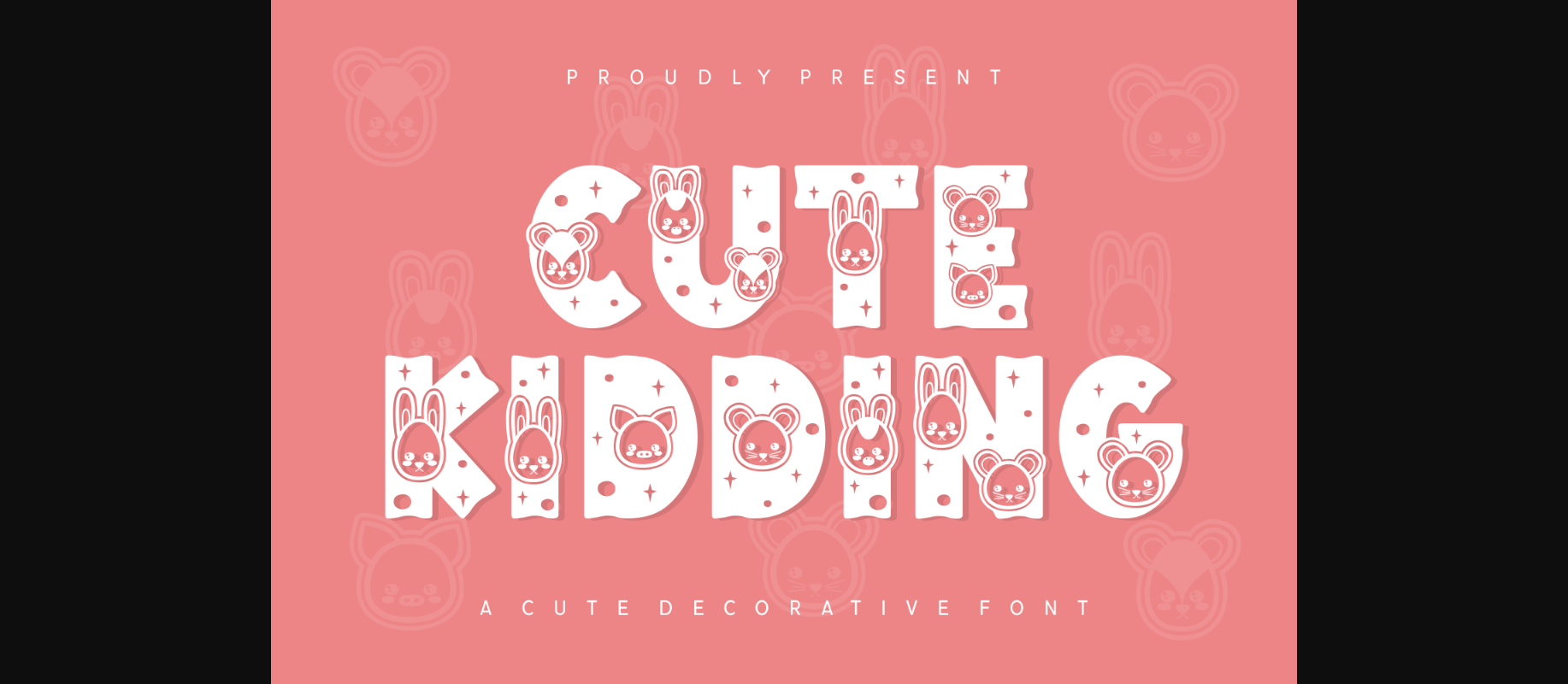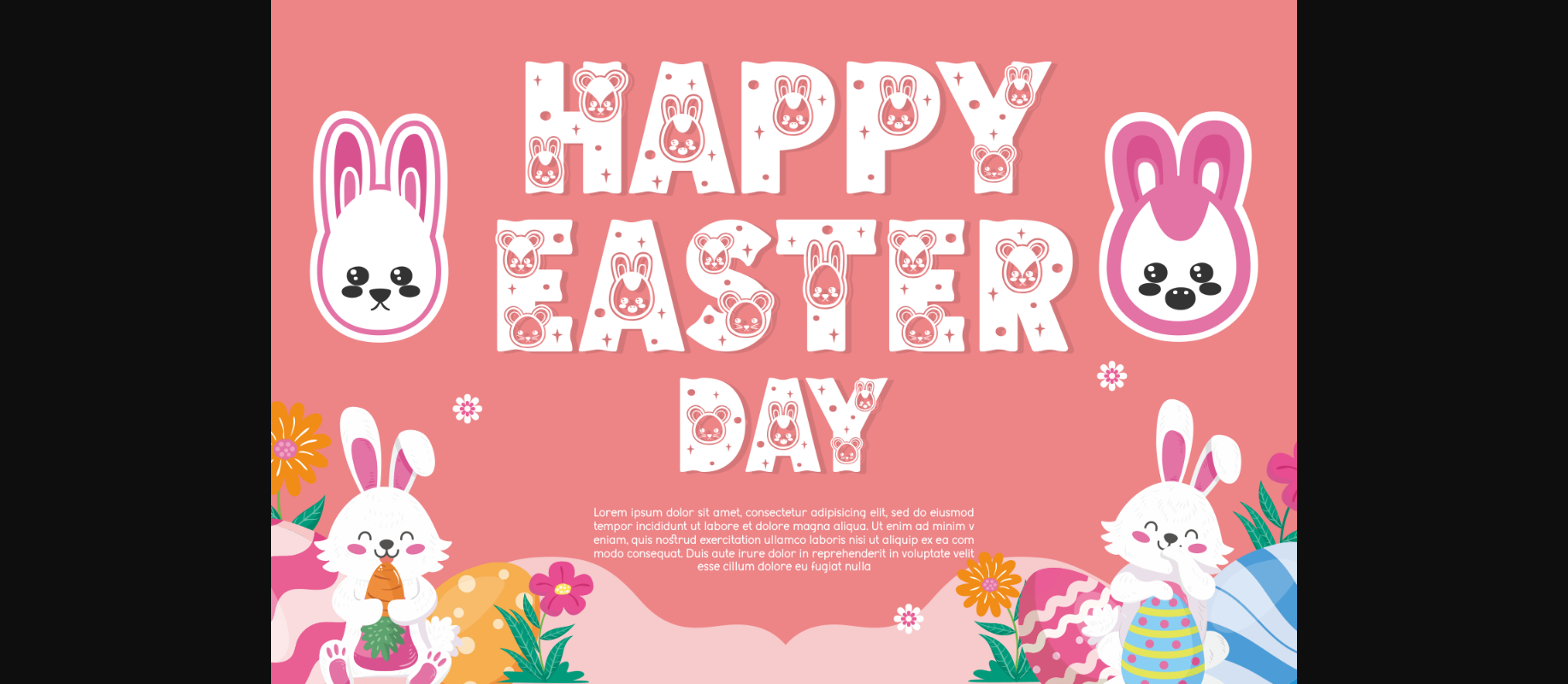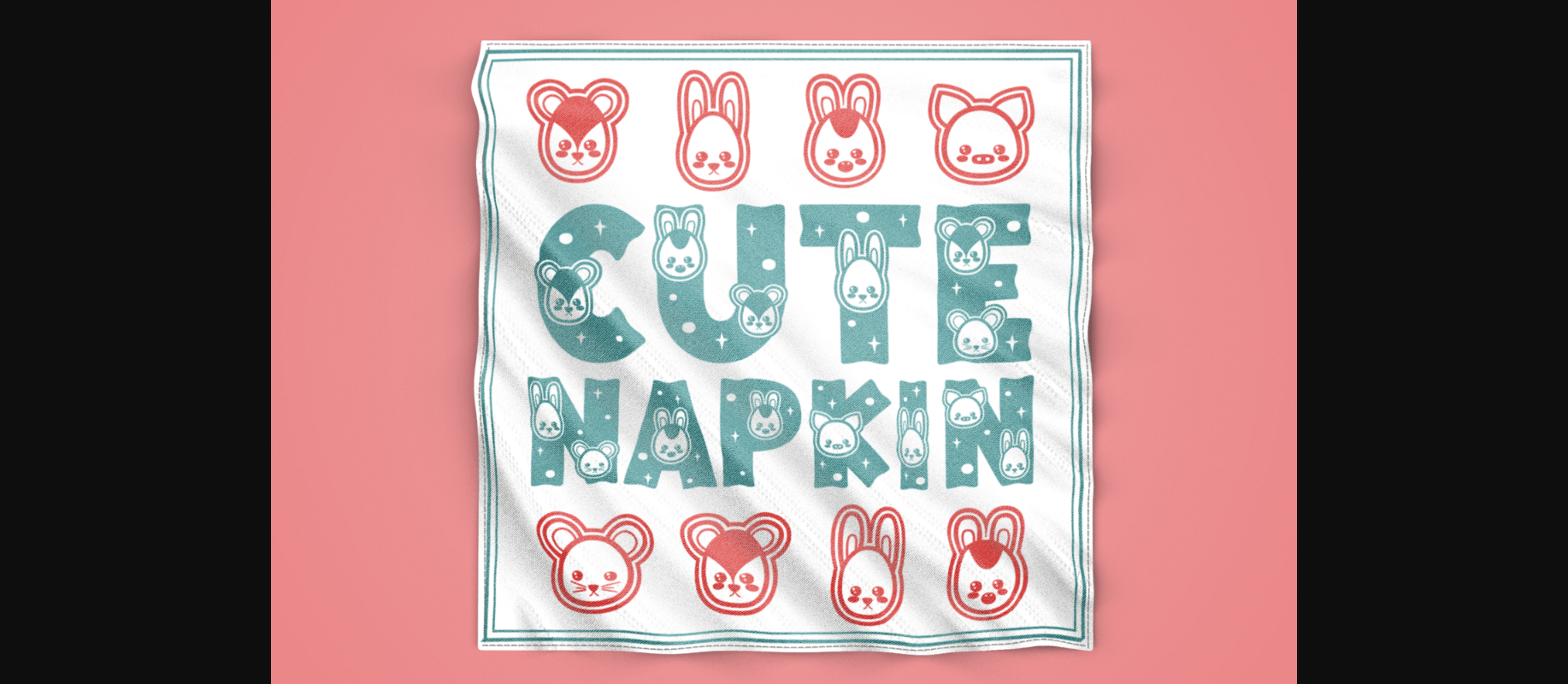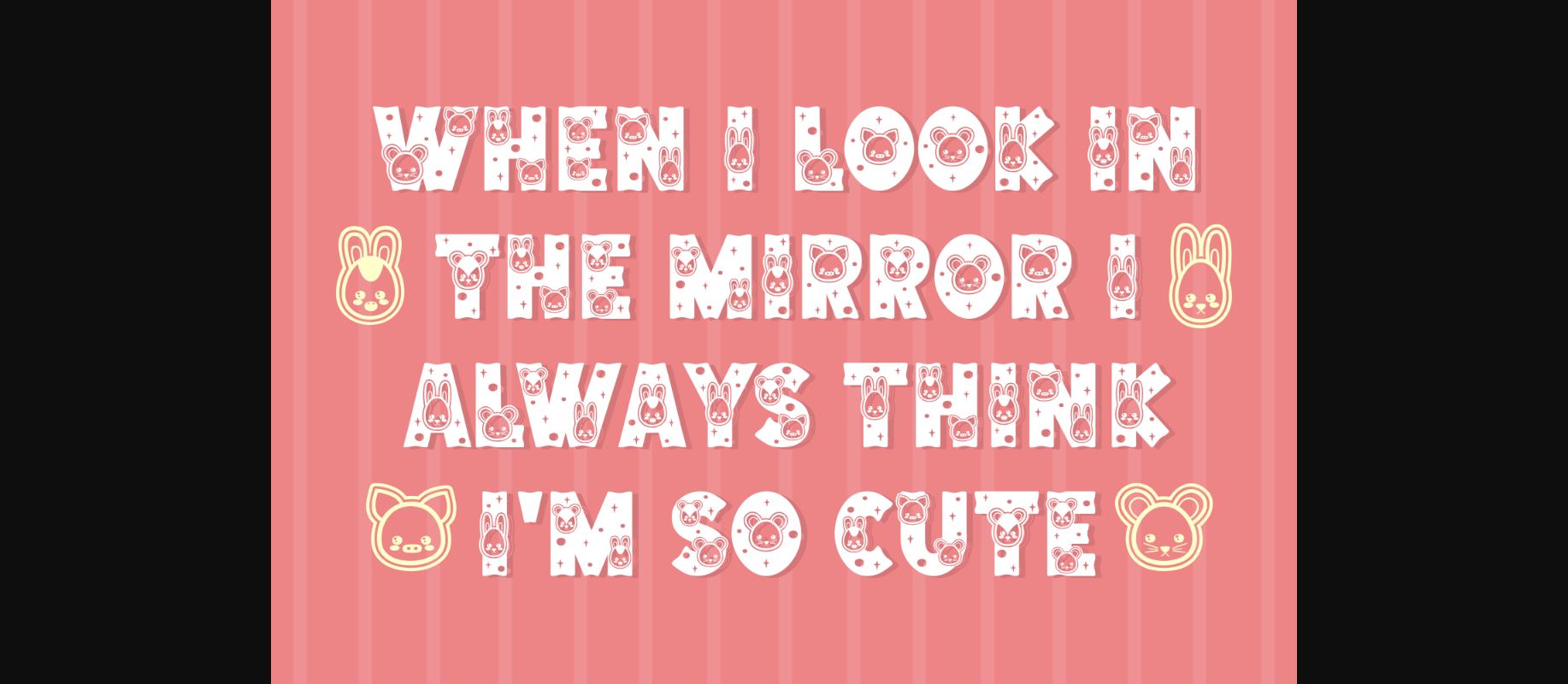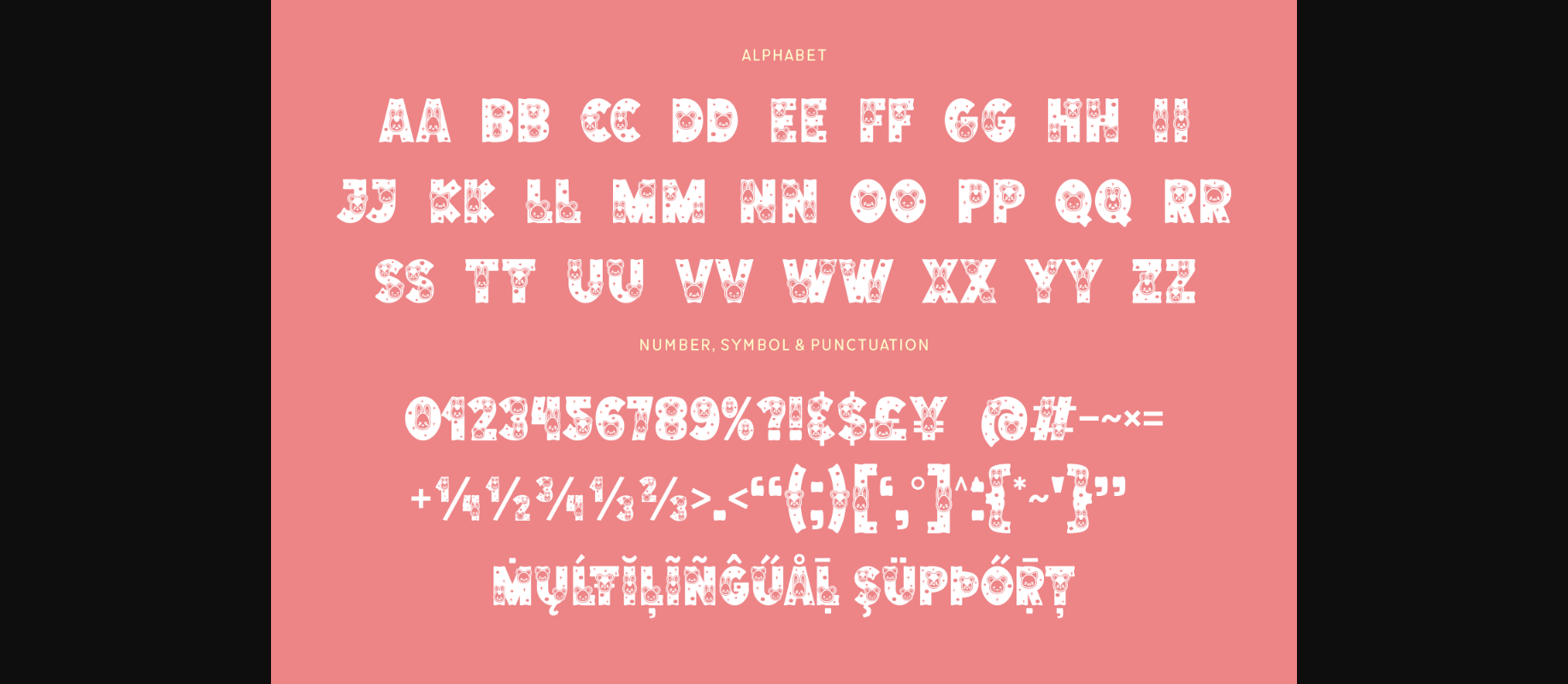
About Cute Kidding Font
Cute Kidding is without a doubt the cutest decorative font out there! Create stunning designs with this playful and adorable font! These embellished characters are suitable for branding fabric prints, crafts, cards, quotes, digital typography, and more.